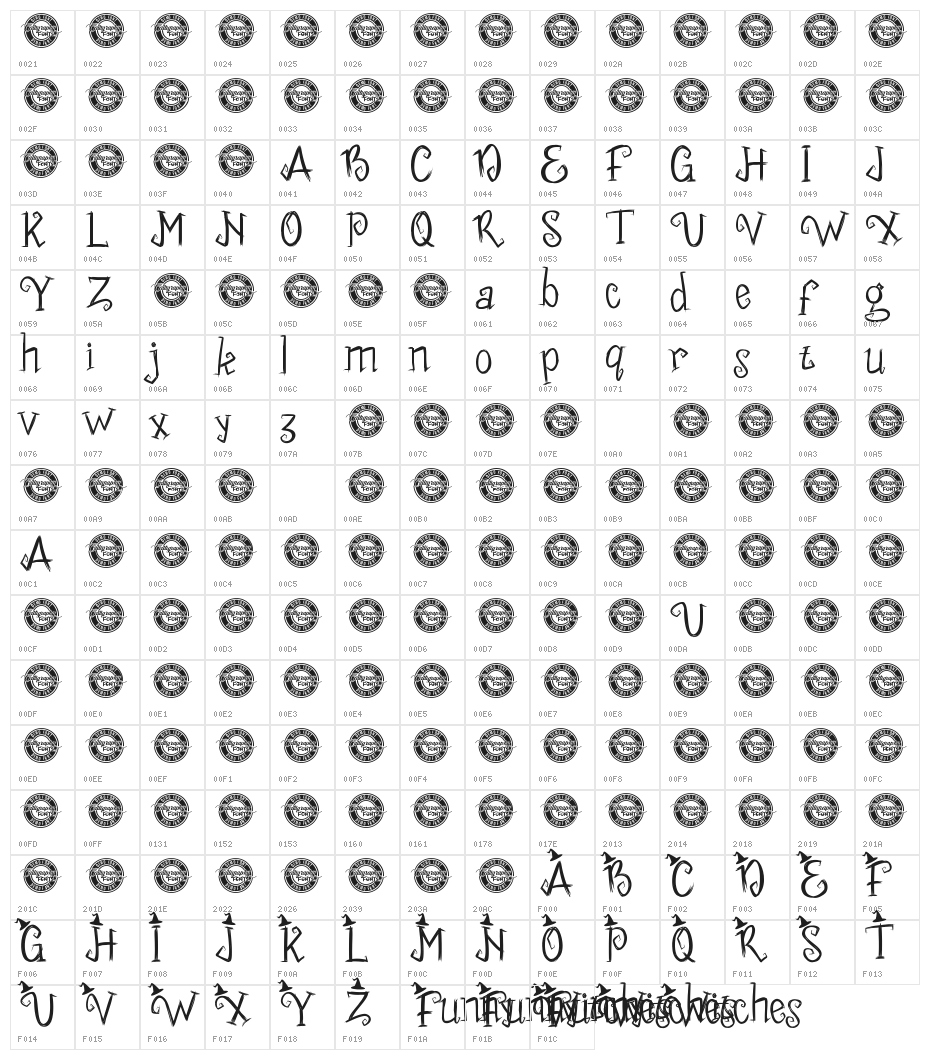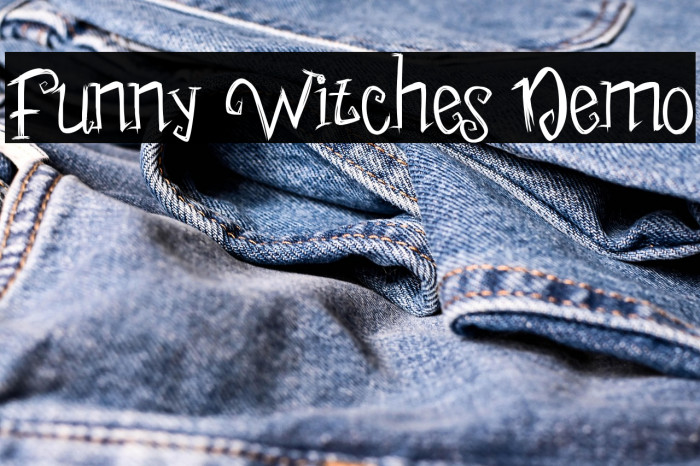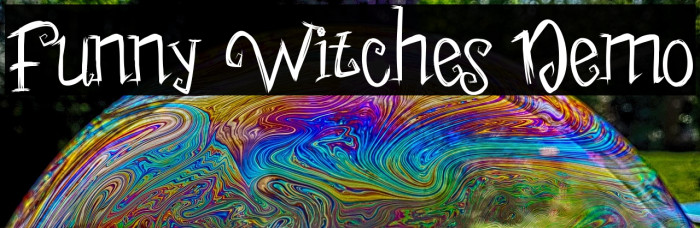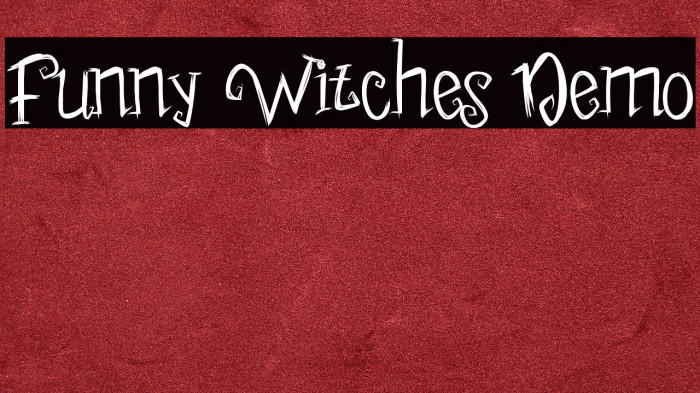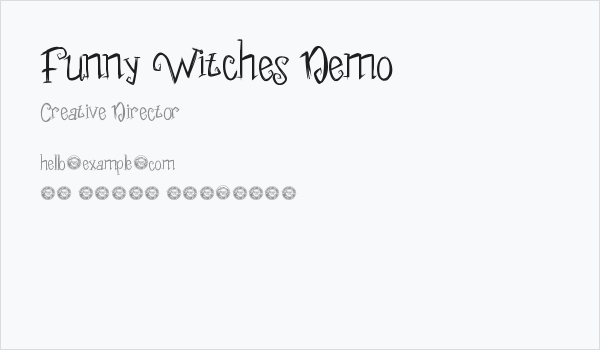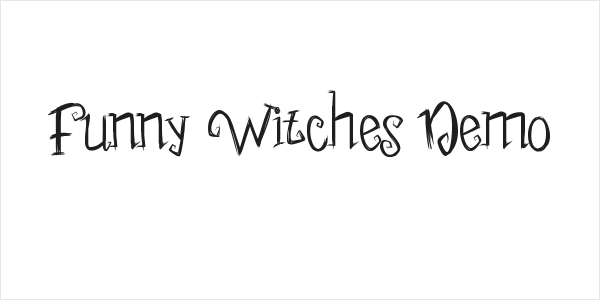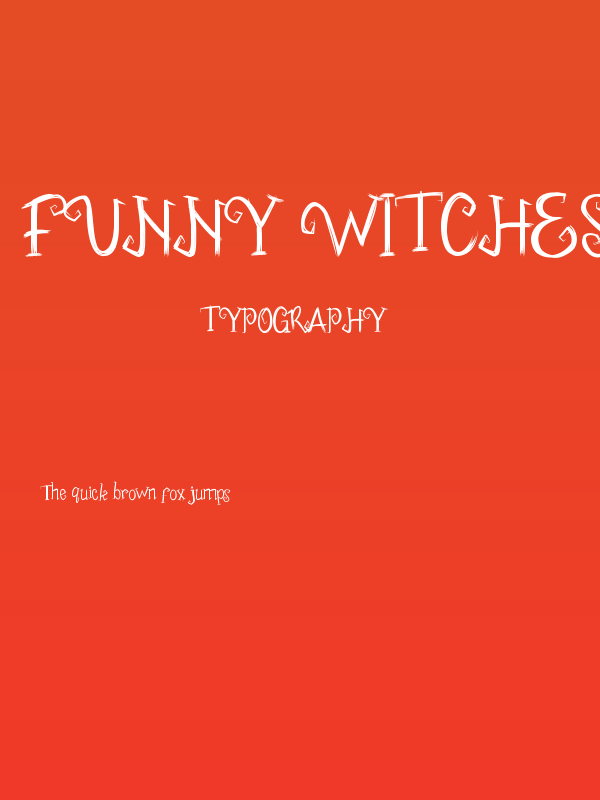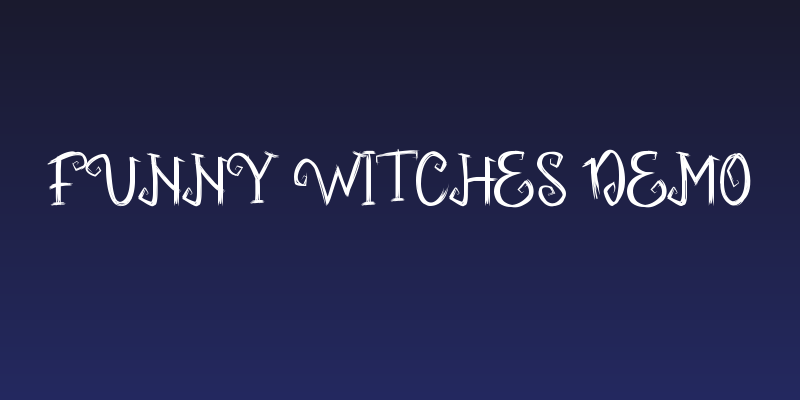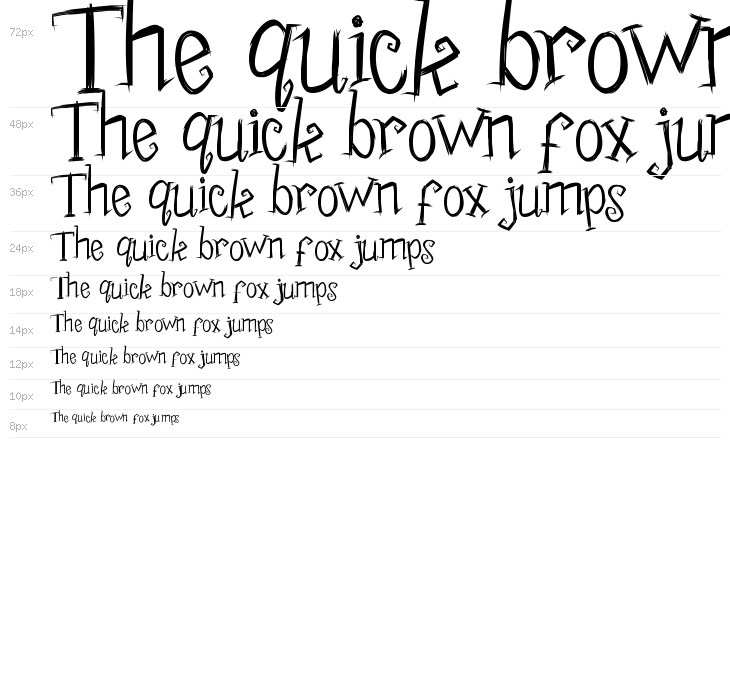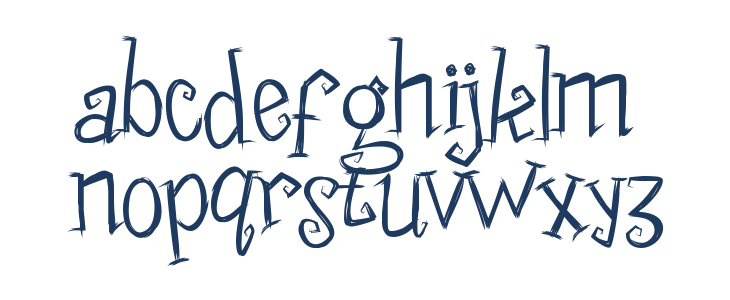
Funny Witches Demo Font
Funny Witches Demo Description
This font features a whimsical and playful design, characterized by its irregular, jagged edges and quirky, hand-drawn appearance. The letters are uniquely styled with a slightly gothic influence, giving them a magical and mysterious vibe. The uppercase and lowercase letters maintain a consistent theme, with exaggerated curves and sharp points that add to the font's enchanting aesthetic. The numbers and special characters follow the same design principles, ensuring a cohesive look across all text elements. This font is perfect for projects that require a touch of fantasy or a spooky, Halloween-inspired theme.